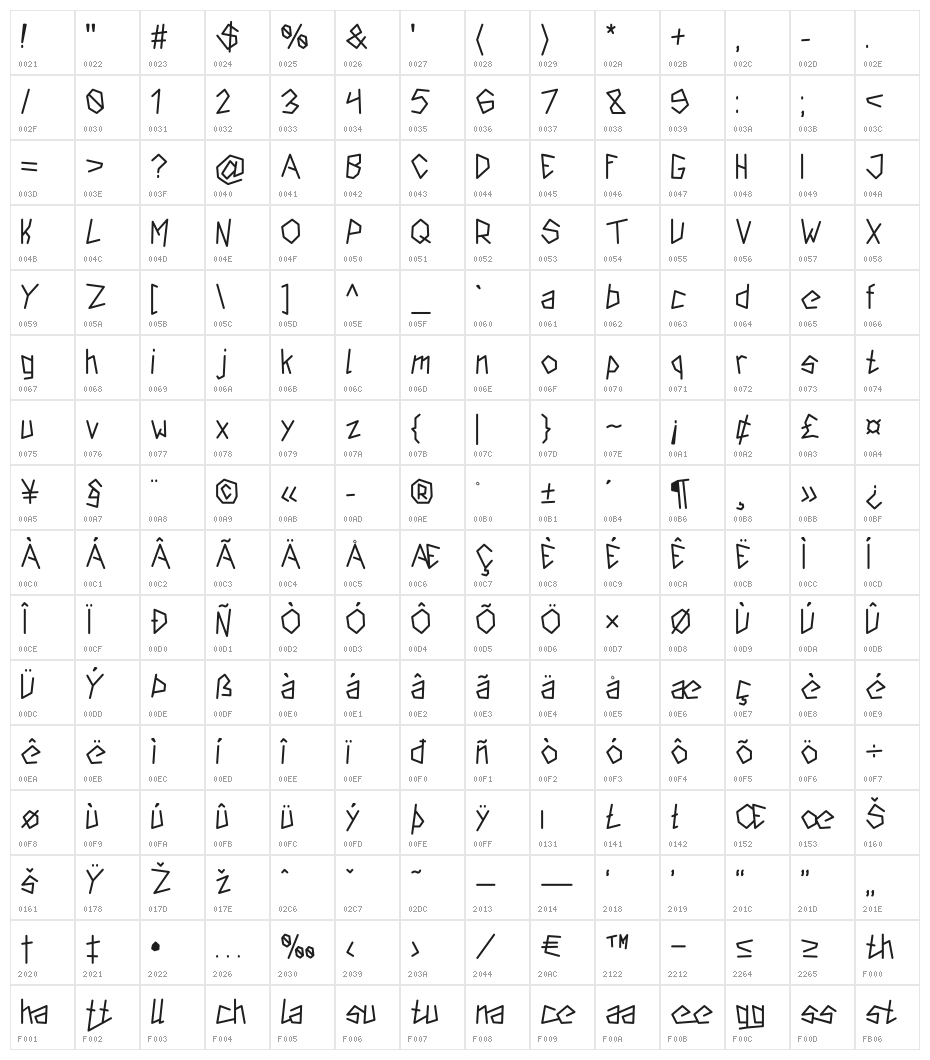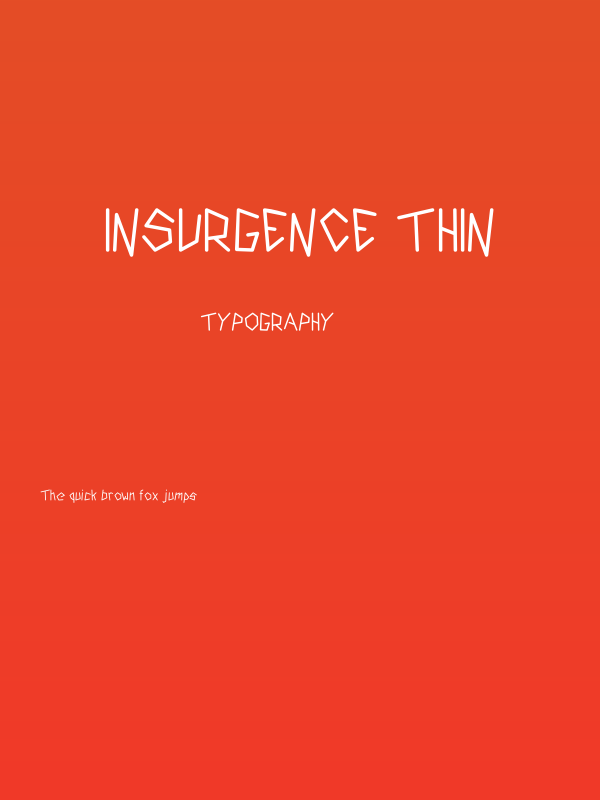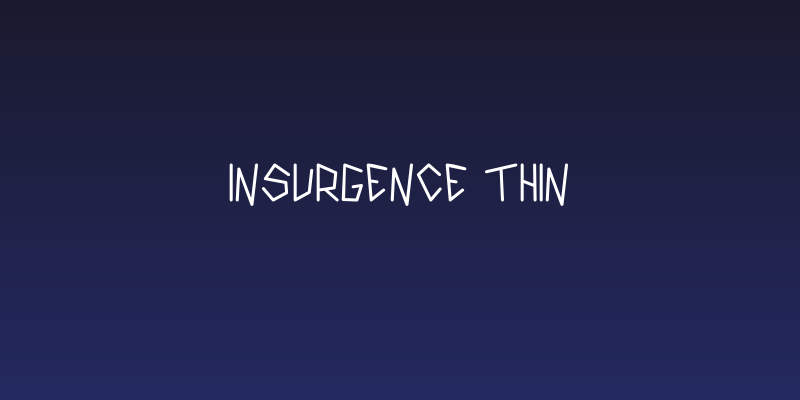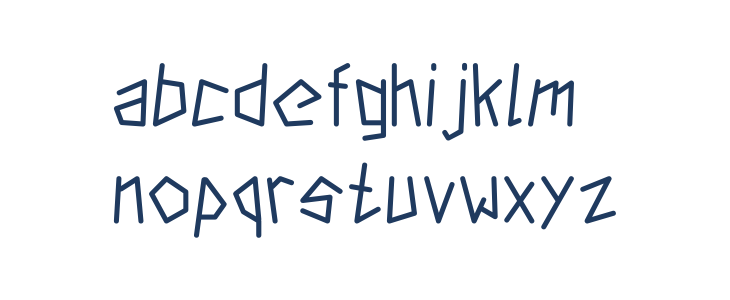
Insurgence Thin Font
Insurgence Thin Description
This font features a unique, angular design with a geometric flair, characterized by sharp edges and a hand-drawn aesthetic. The uppercase and lowercase letters maintain a consistent style, with each character exhibiting a distinct, edgy appearance. The numbers and special characters follow the same design principles, ensuring a cohesive look across all elements. The font's thin strokes contribute to its modern and unconventional feel, making it stand out in any design project. Its distinct style is suitable for creative and artistic applications, where a bold statement is desired.
| Overall Style | Modern, Artistic |
| Use Case | Headlines, Posters, Artistic projects |
| Proposed Projects | Ideal for album covers, posters, branding for edgy or modern companies, and artistic projects. |